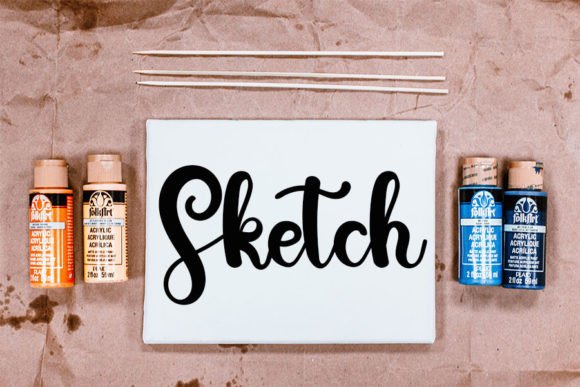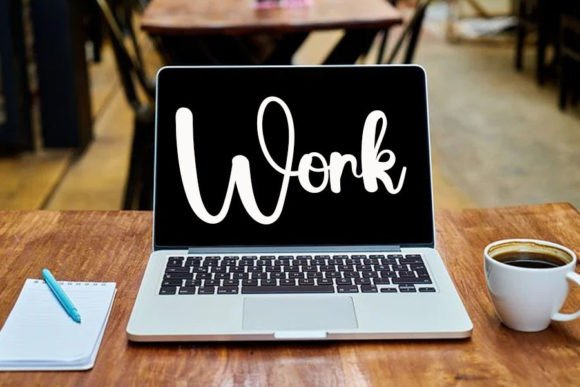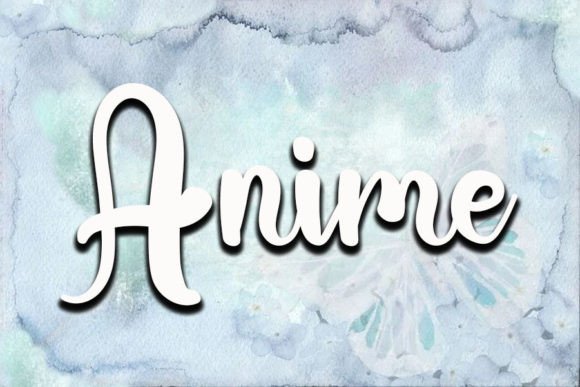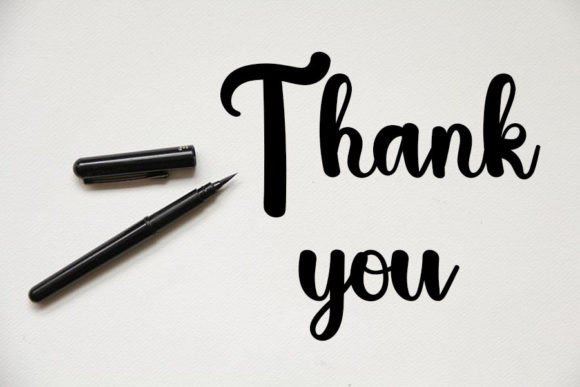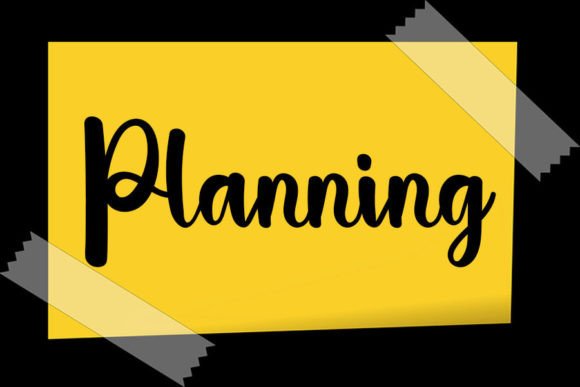
Simple Plan
About Simple Plan
Simple Plan is a magical handwritten font carefully created with a touch of elegance. Clean and a little bit quirky, this font is the perfect fit for all of your logos, branding, social media, and crafty DIY projects.